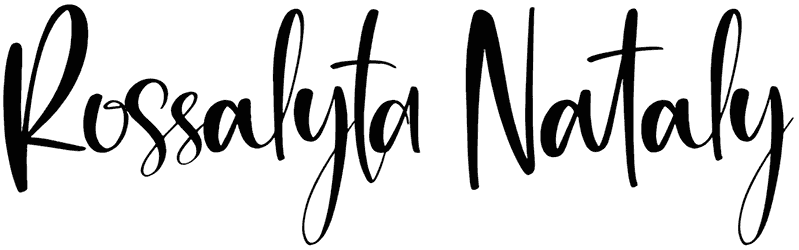
Rossalyta Nataly Font
Manuscript contexts always have their own charm and never leave the competition to be the best style. This handwritten font, named Rossalyta Nataly, with its modern and casual style, can be a matchable option for any subject. This A-Z calligraphy font is able to illustrate your projects from logos to tattoos with its unique mood.